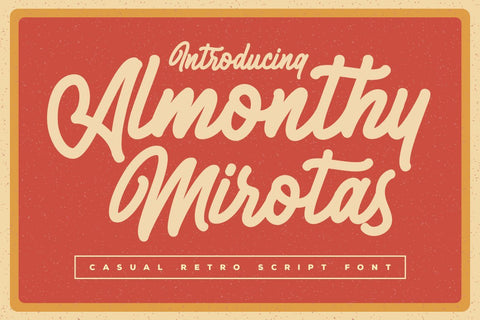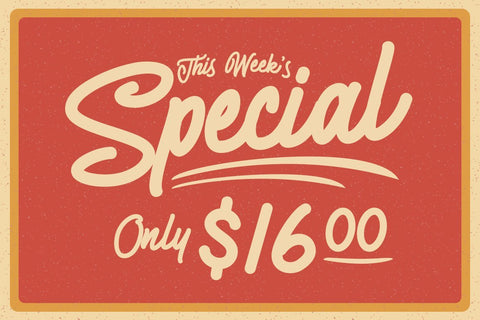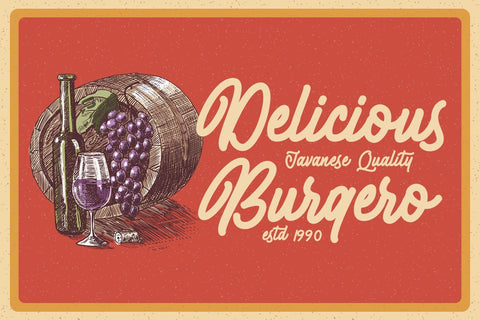
Almonthy Mirotas Monoline Script Font
Almonthy Mirotas is a stunning handwritten font with retro or vintage style. Use it to add a classic touch to any design project!
Almonthy Mirotas would be perfect for logos & branding, photography, watermark, social media posts, advertisements, invitation, product designs, label, stationery, product packaging, special events or anything that need handwriting taste.